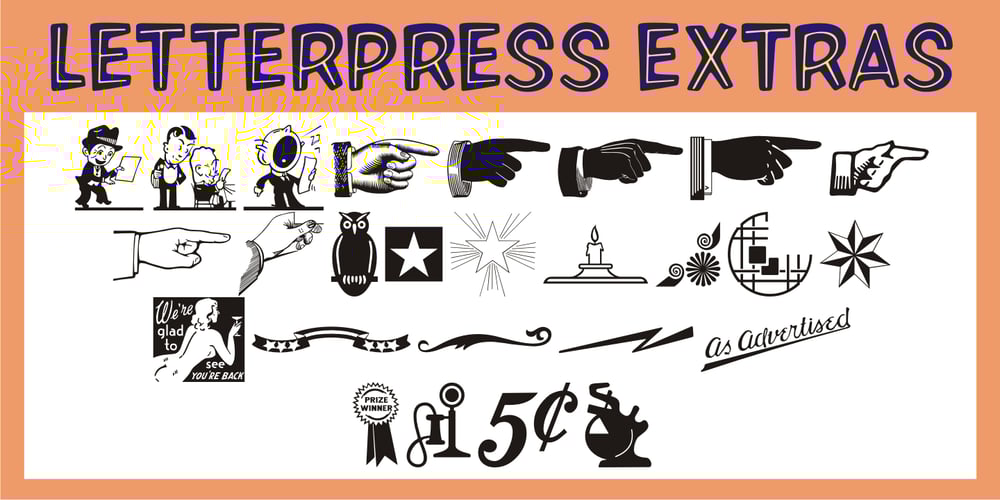
Letterpress Extras JNL Font Family was designed by Jeff Levine and published by Jeff Levine. Letterpress Extras JNL contains 1 styles and family package options. Letterpress Extras JNL gathers more re-drawn images from the rich trove of vintage letterpress cuts. There’s plenty of pointing hands and decorative ornaments, a few cartoons and some assorted miscellany. Also included are images of dip pen nibs from an old catalog and a decorative border set. To access the pen points, use the shift key and type any numeral key.